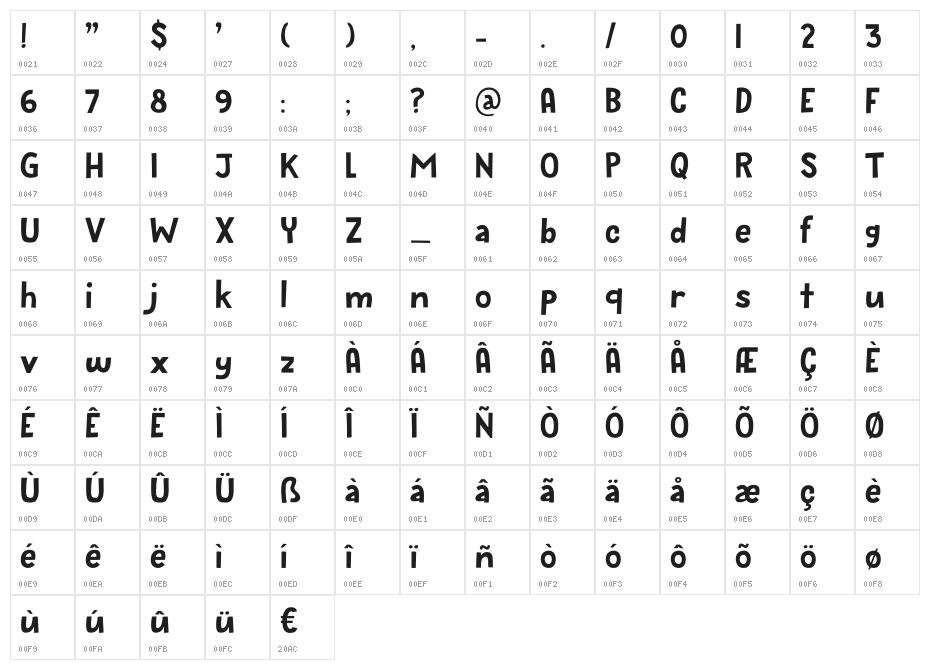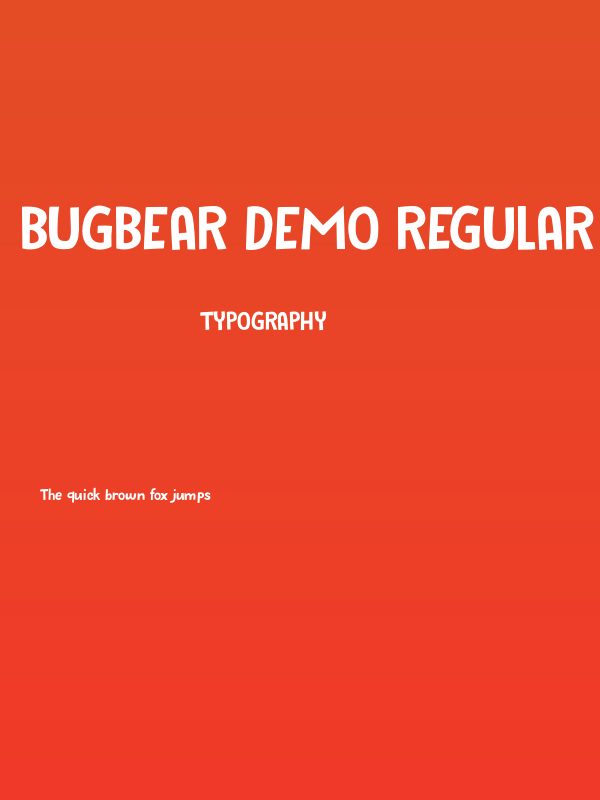
Bugbear DEMO Regular Font
| समग्र शैली | Playful, Whimsical |
| उपयोग का मामला | Headlines, Logos, Posters |
| सुझाए गए प्रोजेक्ट | Ideal for children's books, playful branding, greeting cards, and creative posters. |